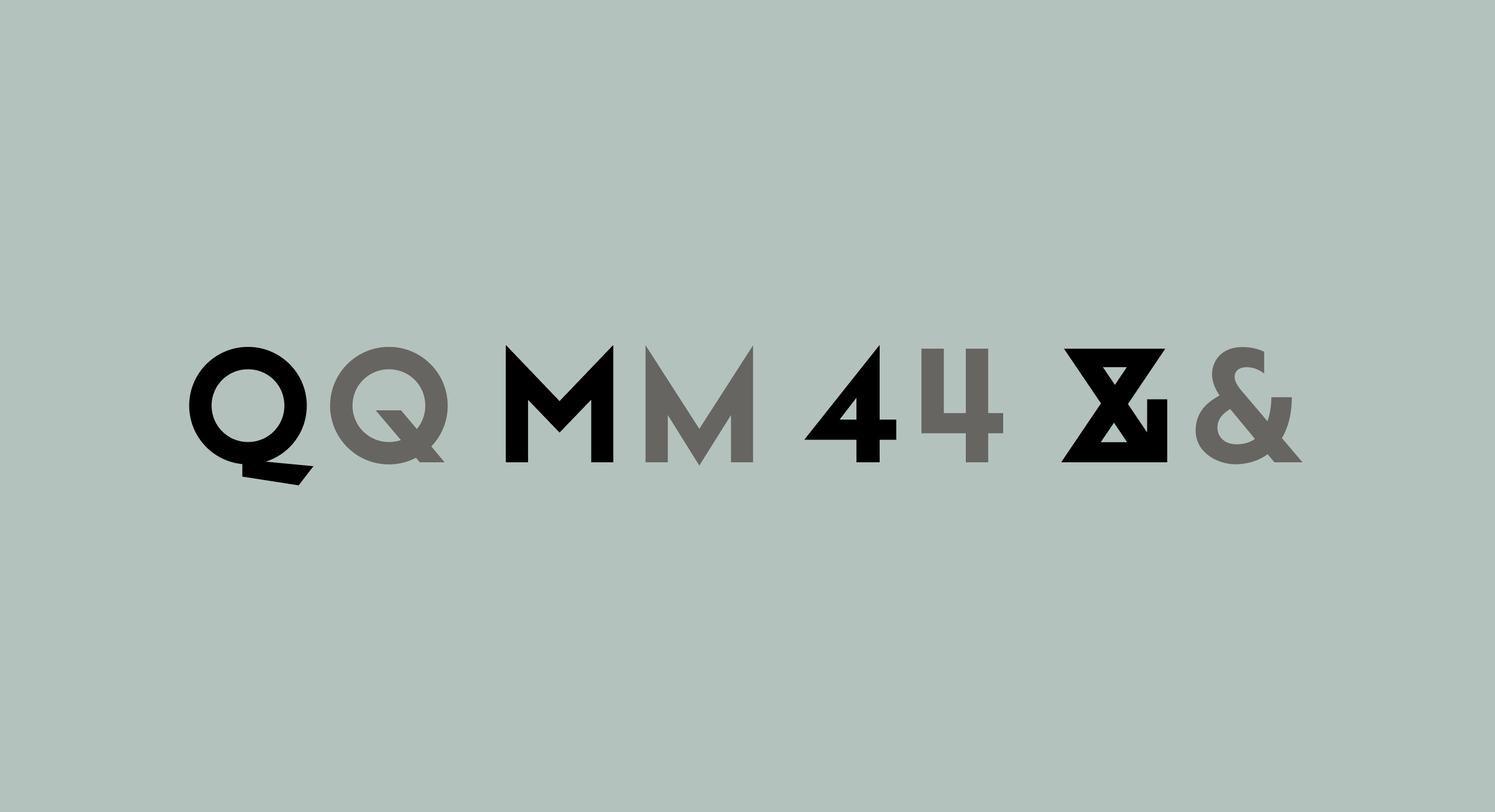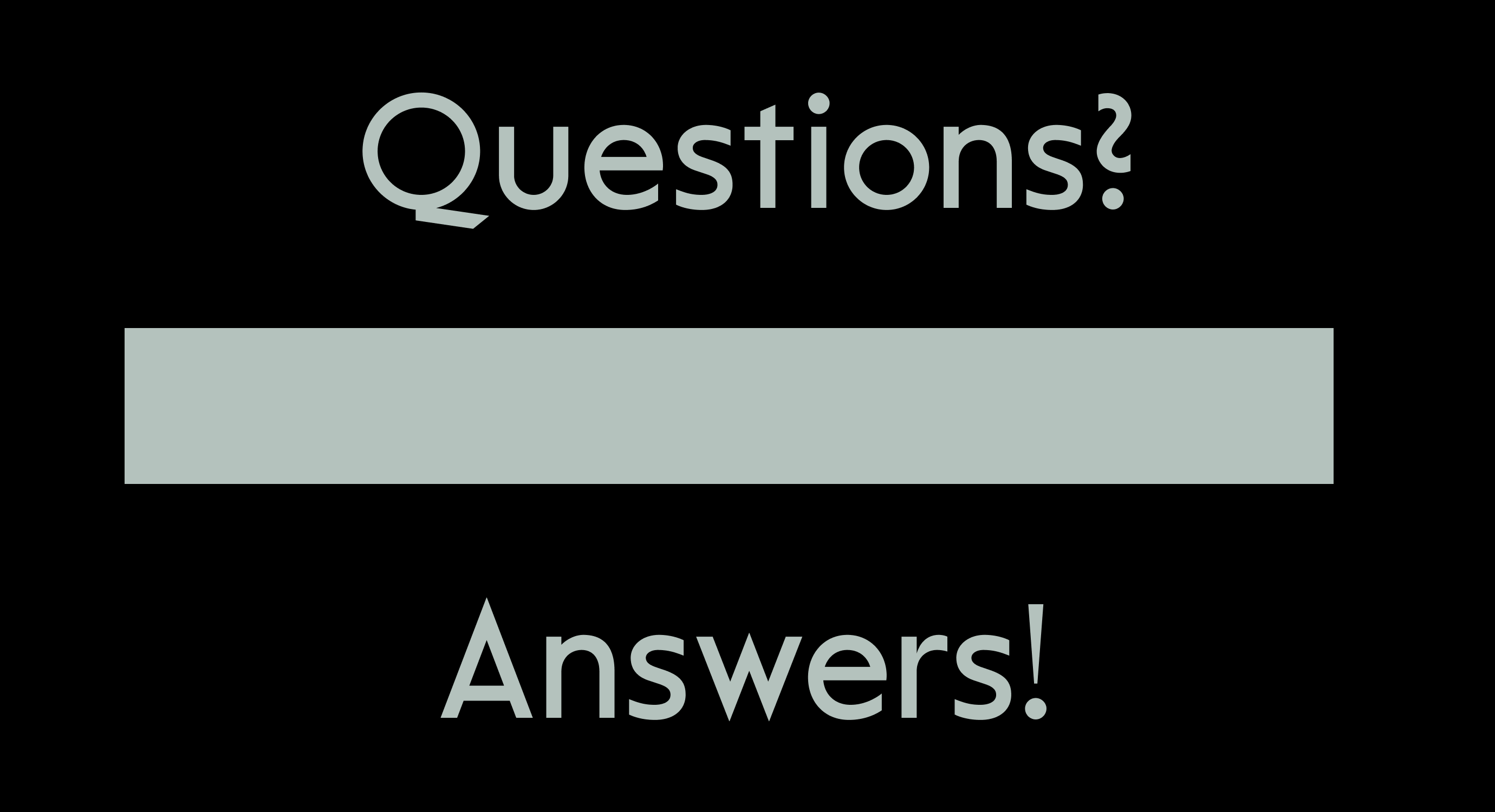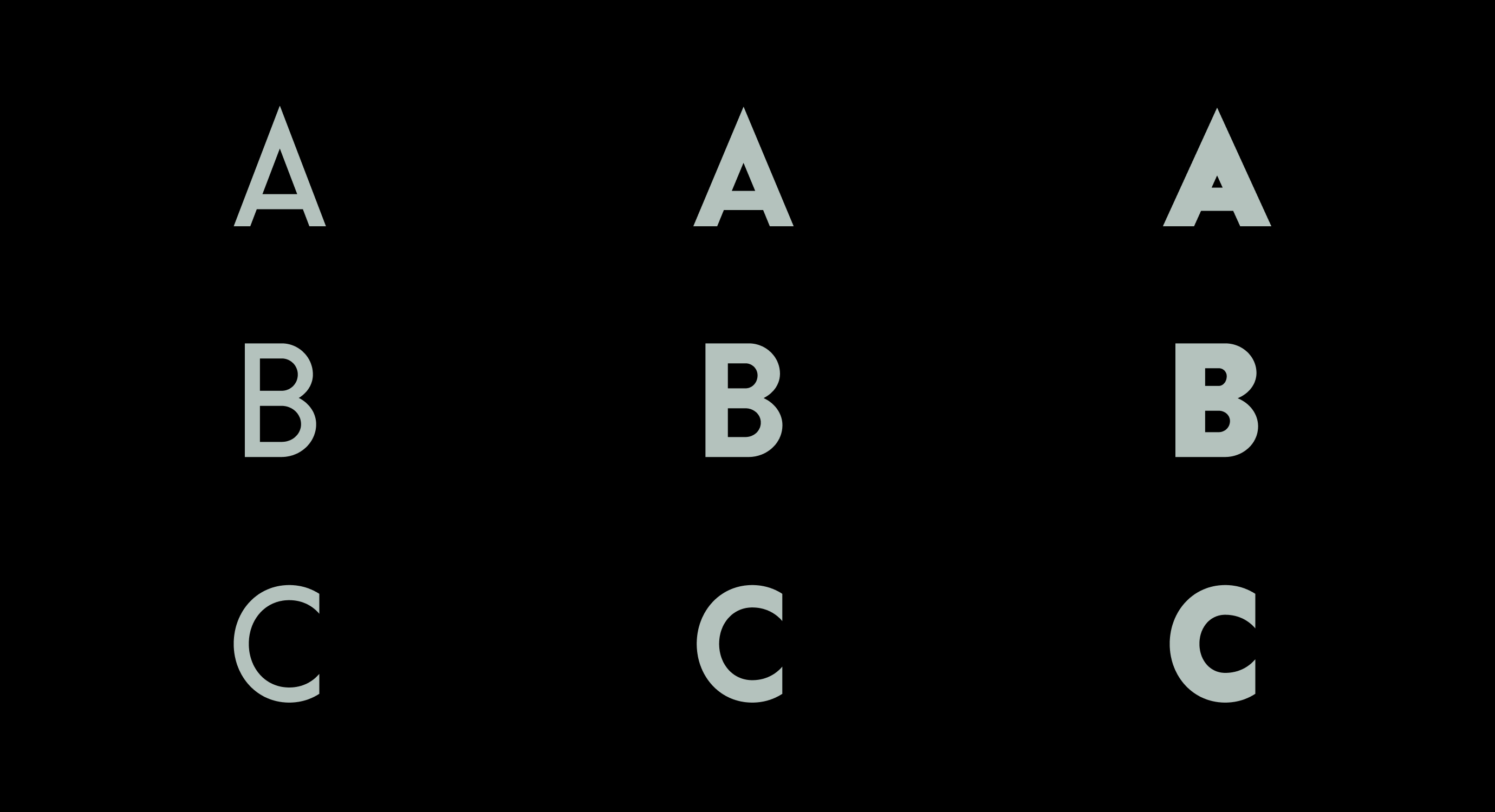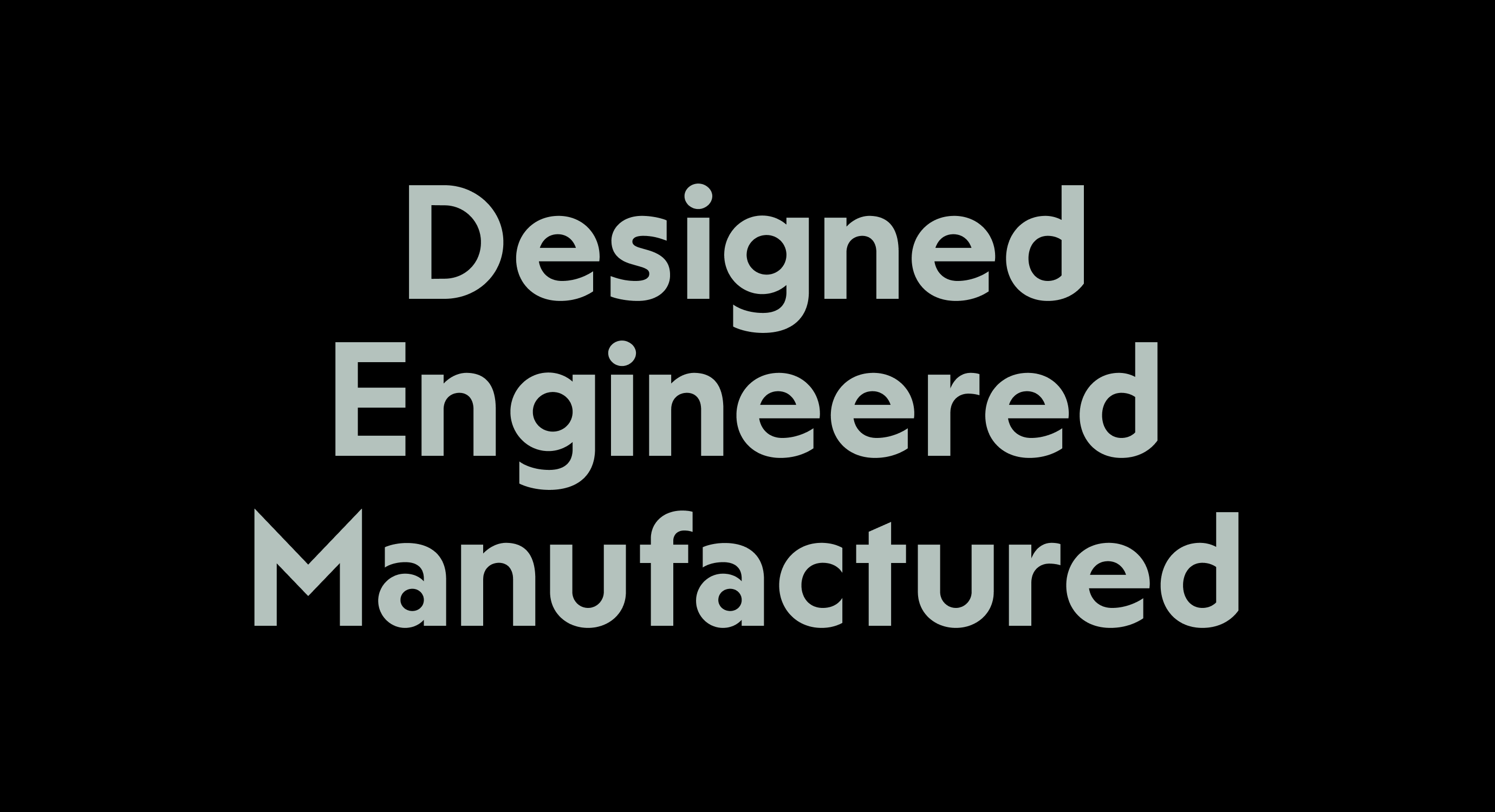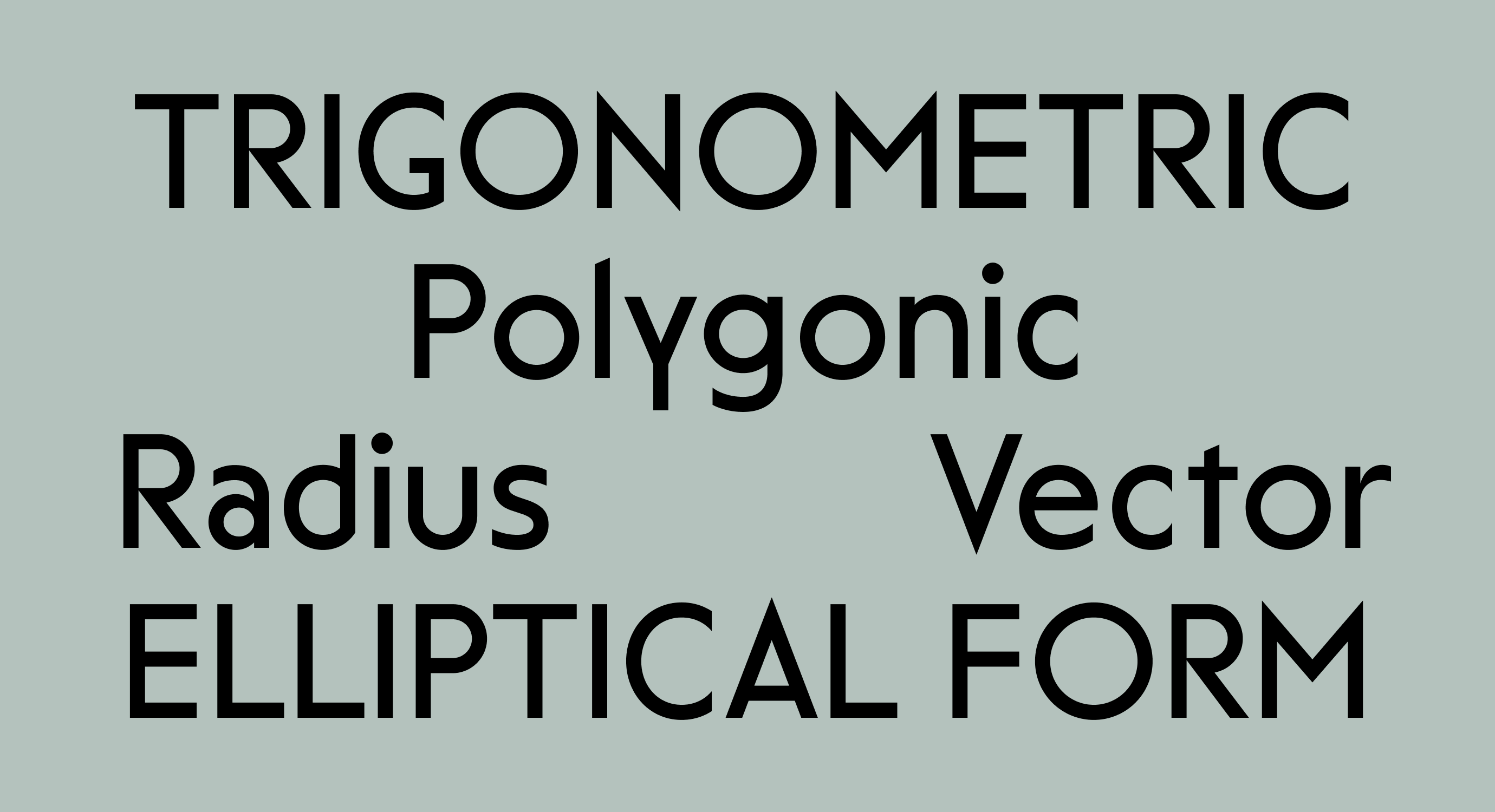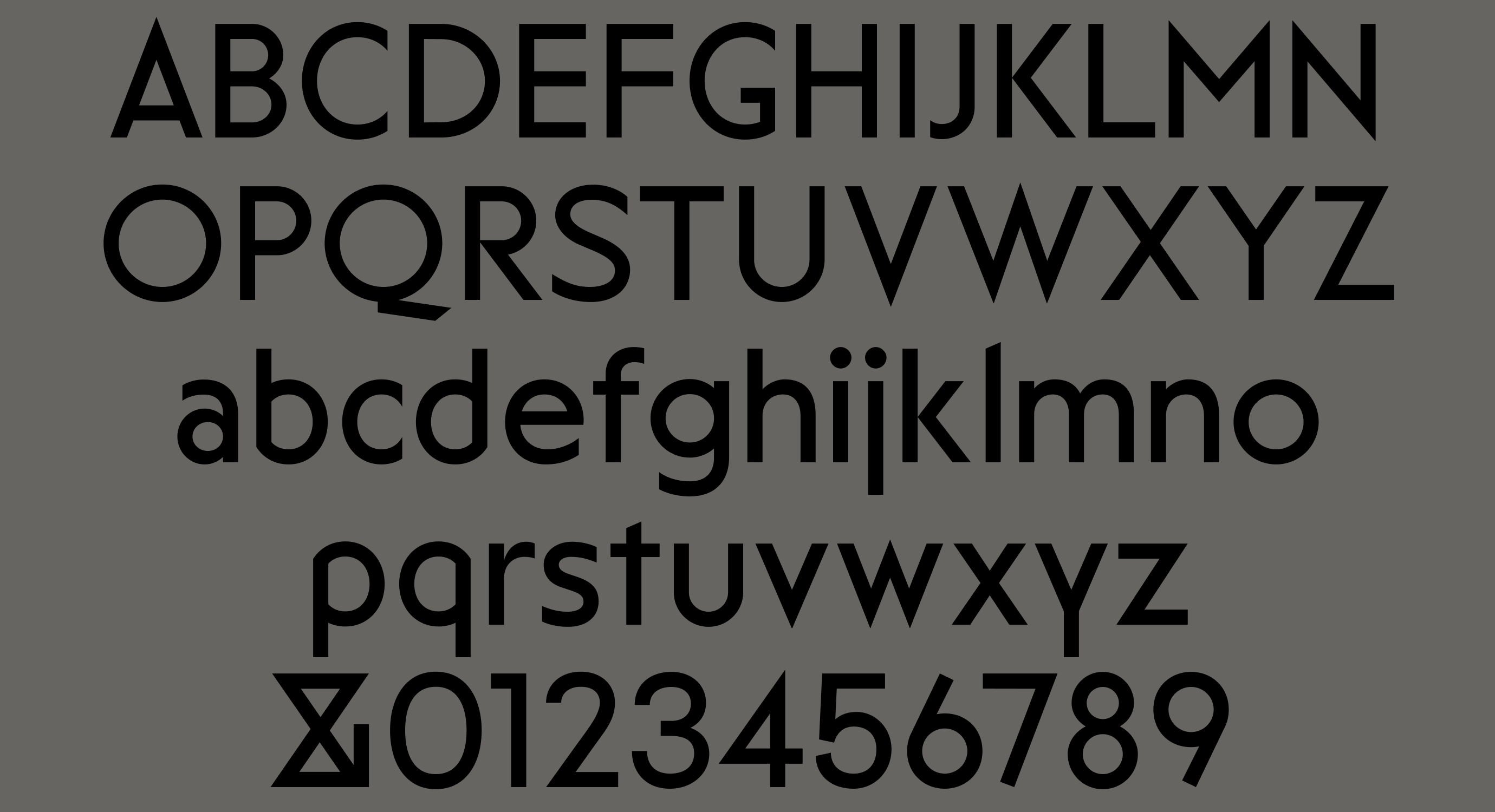
AF Ashbury
AF Ashbury is what happens when Futura and Gill Sans rendezvous under suspicious circumstances and leave behind a geometric alibi. This sans-serif blends the polished modernism of its parents with a disarming levity—its letterforms are light, airy, and as inviting as a helium balloon on a sunlit porch. Beneath all the buoyancy lies a rigid crispness, that makes joy feel authoritative.